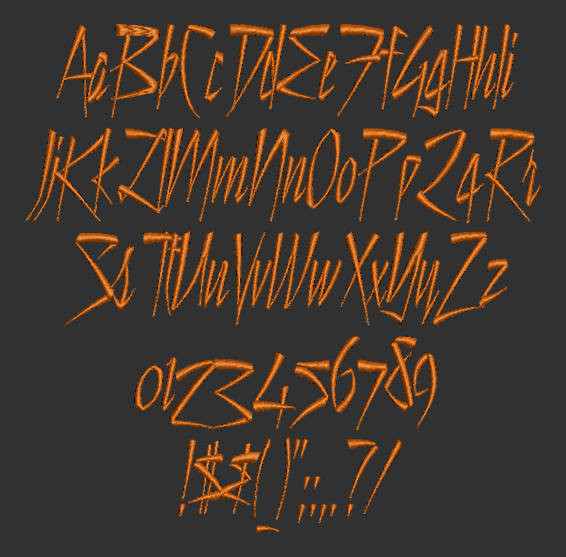
Still Time Embroidery Font
Title: Still Time Font
This still time machine embroidery font is perfect for personalizing clothes, bags, towels and linens!